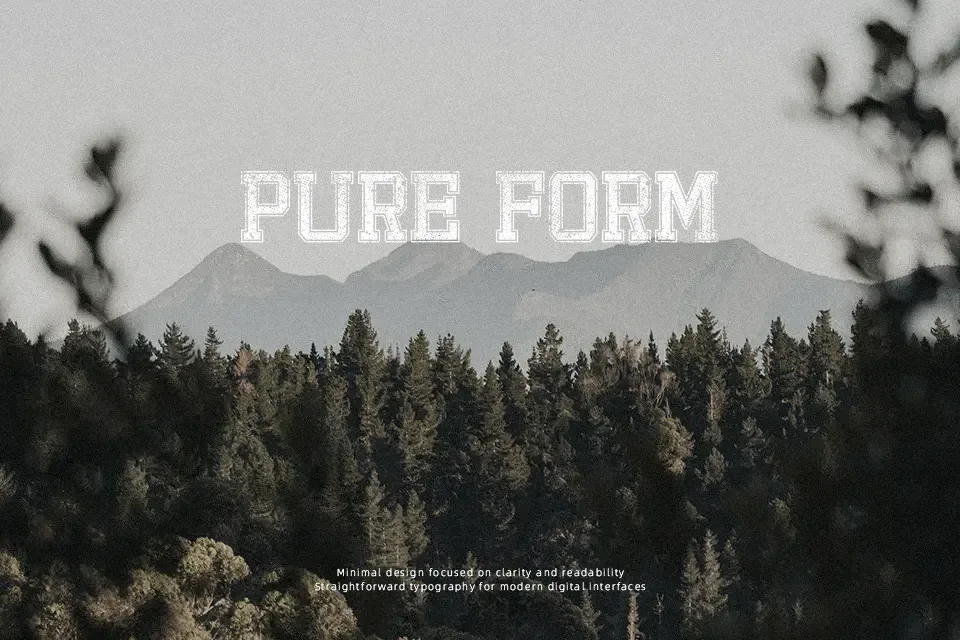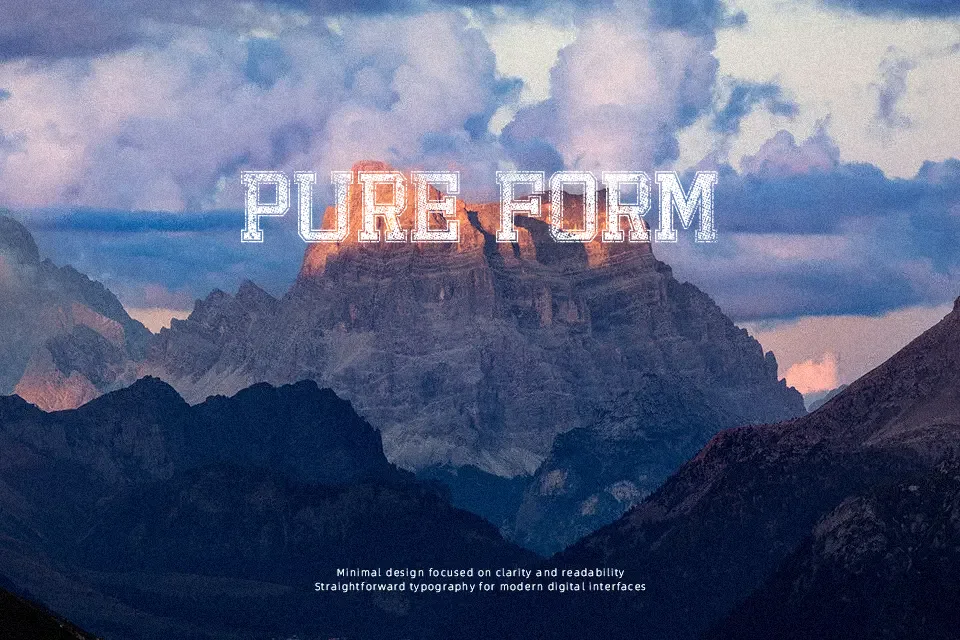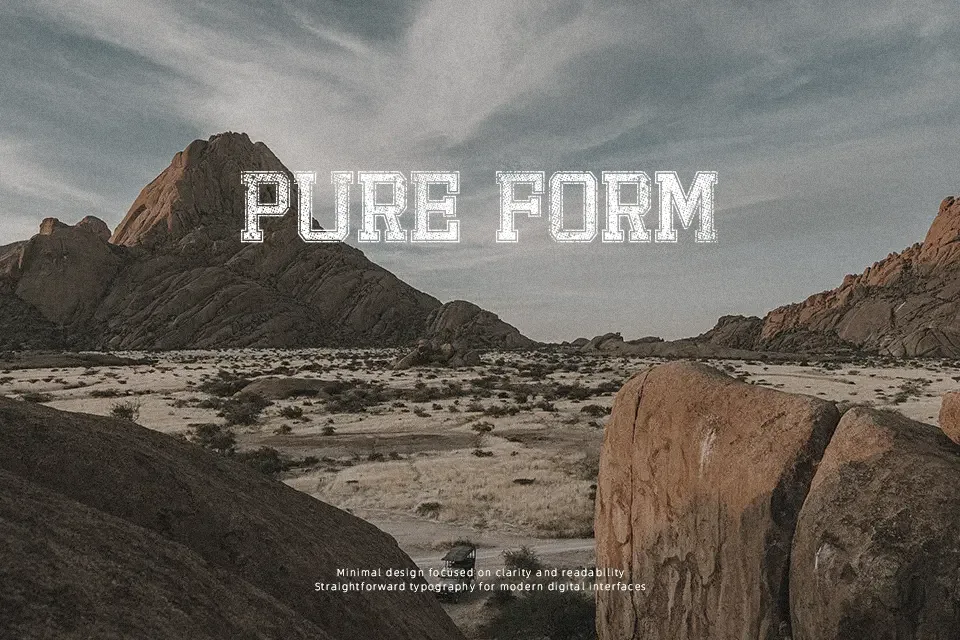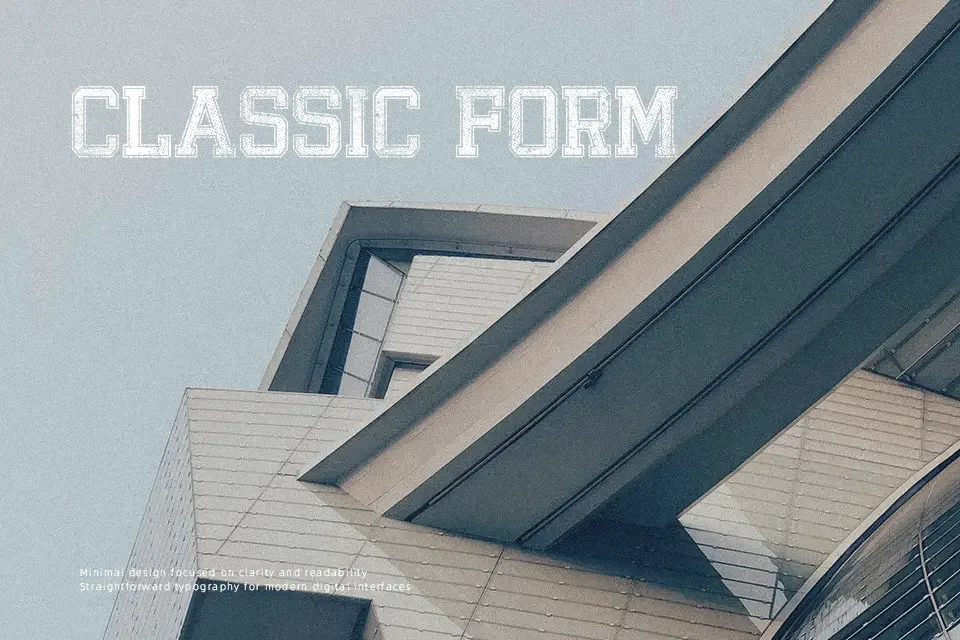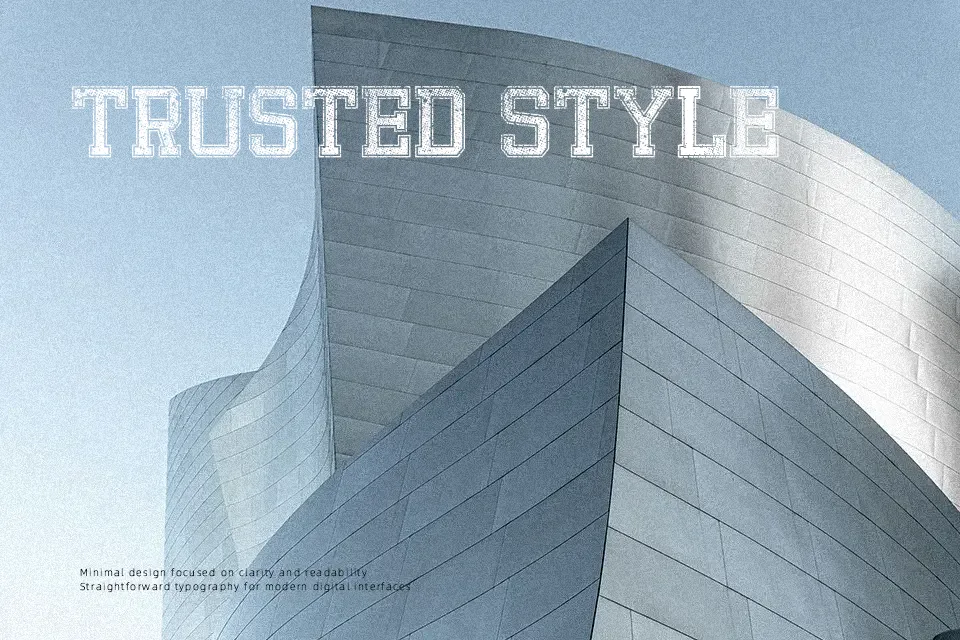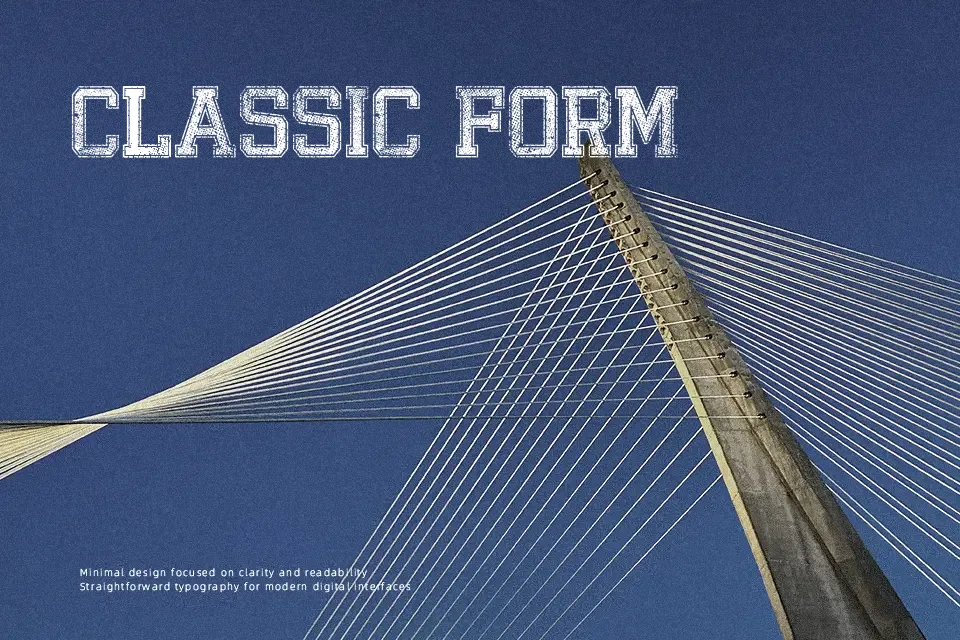
Bandung Hardcore GP Font
Designed by Mr Letters
Bandung Hardcore GP Font has a gritty display structure with heavy strokes, sharp movement, and a rough handmade feel. The letterforms carry a strong grunge attitude, so it fits band graphics, poster titles, and street-style branding. It works best when you want impact and texture, but the rough finish can hurt readability in small sizes. I would use it for short, loud headlines rather than detailed text or formal layouts.
Best For: Logo,Poster,Branding,Music
Not Ideal For: Body Text,Website,Business Card,Editorial
Perfect for branding, logo, and music, with a bold and decorative style.